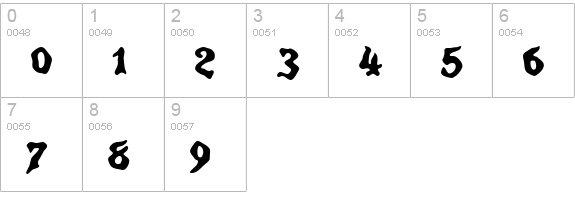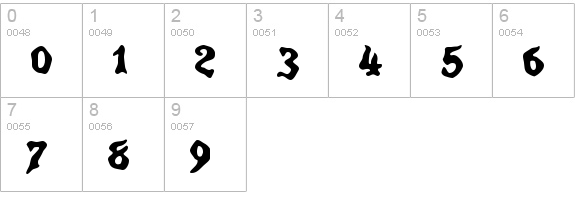
Spirits MF Font Details
Spirits MF font is a captivating and versatile typeface that exudes elegance and sophistication. Its unique design features graceful curves and intricate details that make it perfect for adding a touch of class to any project. Whether you are designing a wedding invitation, creating a logo, or crafting a branding campaign, Spirits MF font will elevate your work to new heights. What makes Spirits MF font even more appealing is that it is completely free to download at FontsMarket.com. This means you can access this stunning font without any cost, making it a valuable addition to your design toolkit. With Spirits MF font, you can effortlessly bring a sense of style and refinement to your projects, all while enjoying the convenience of a free download. Don't miss out on this opportunity to enhance your designs with the beauty of Spirits MF font.